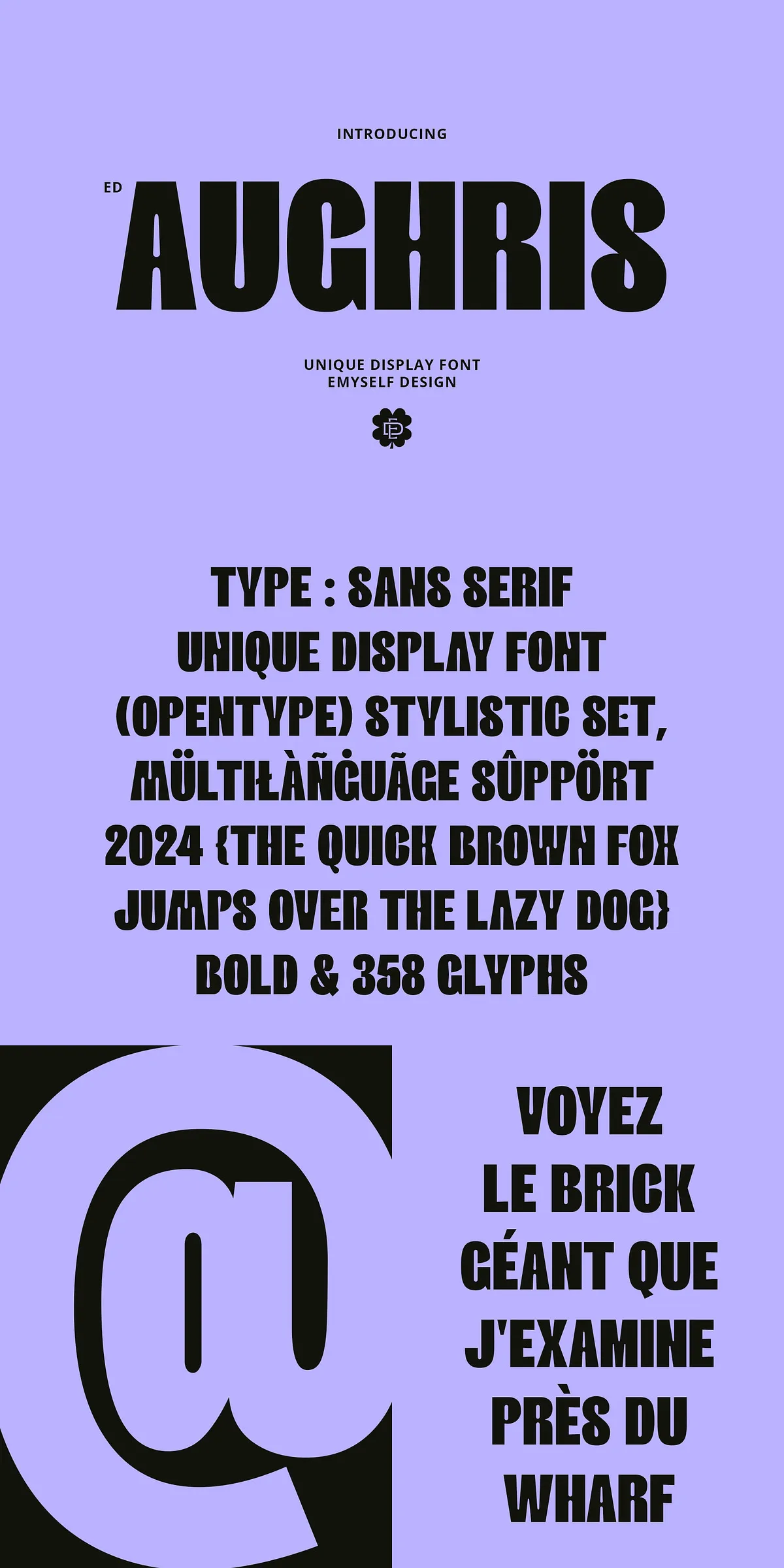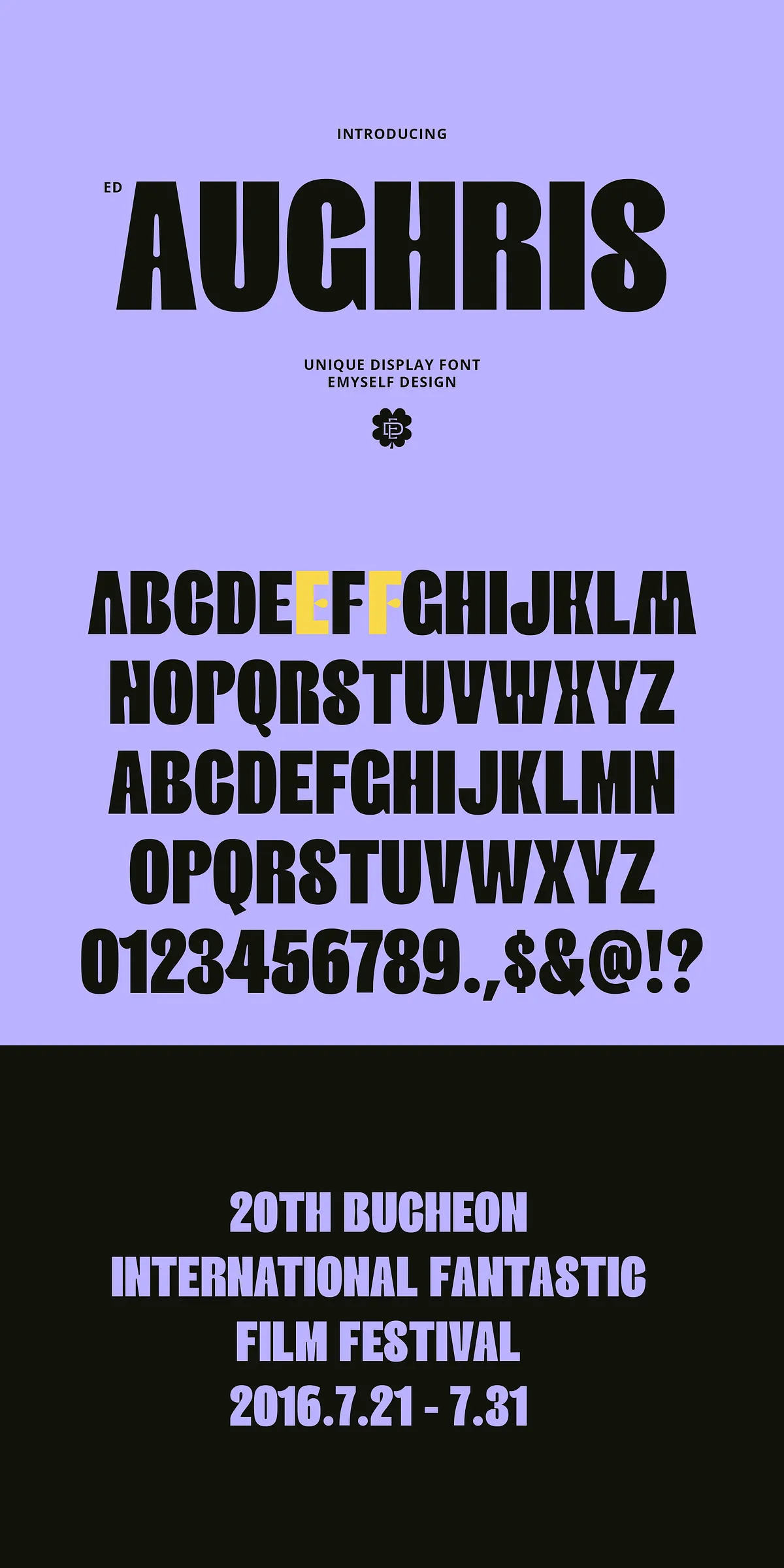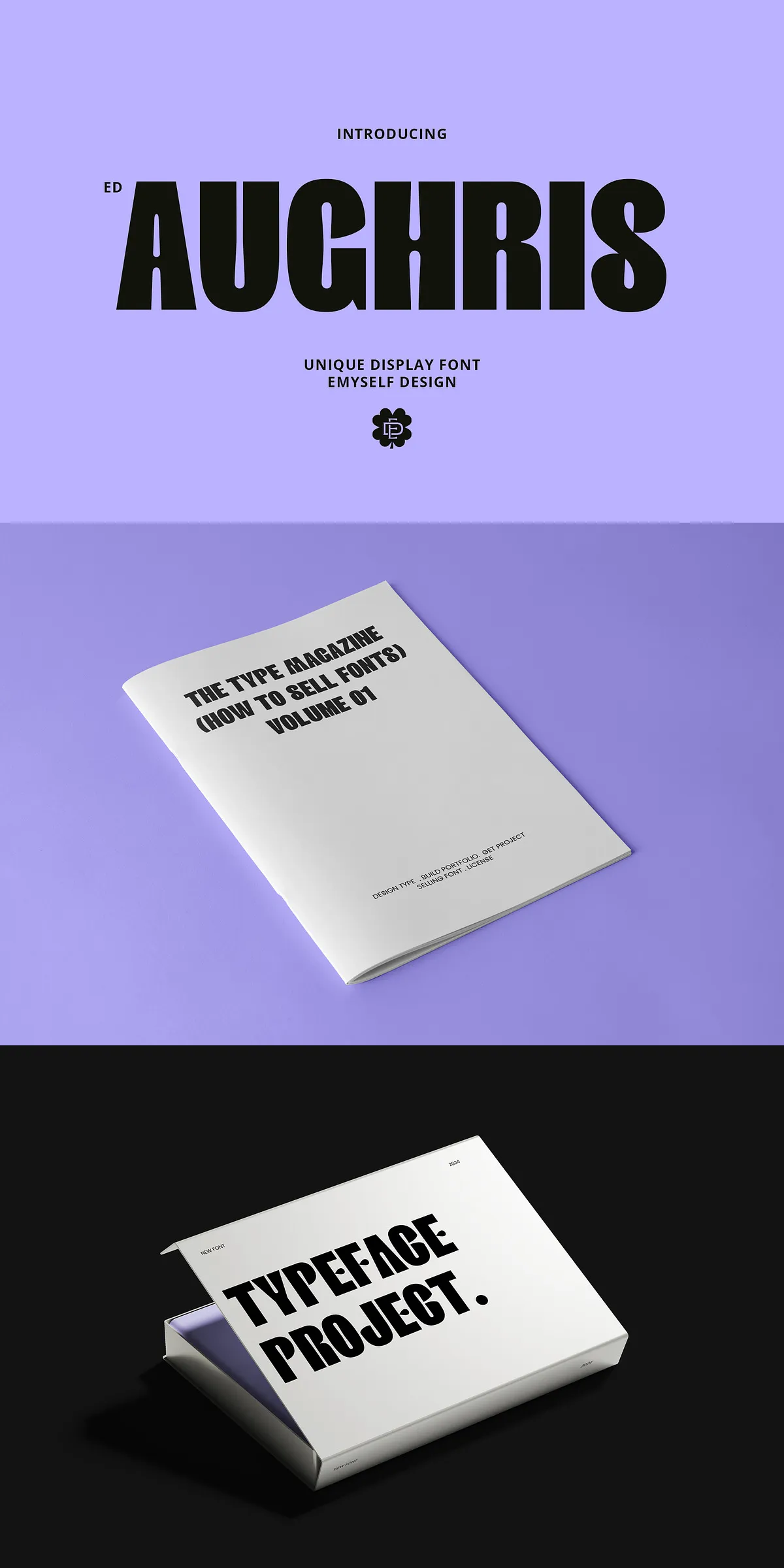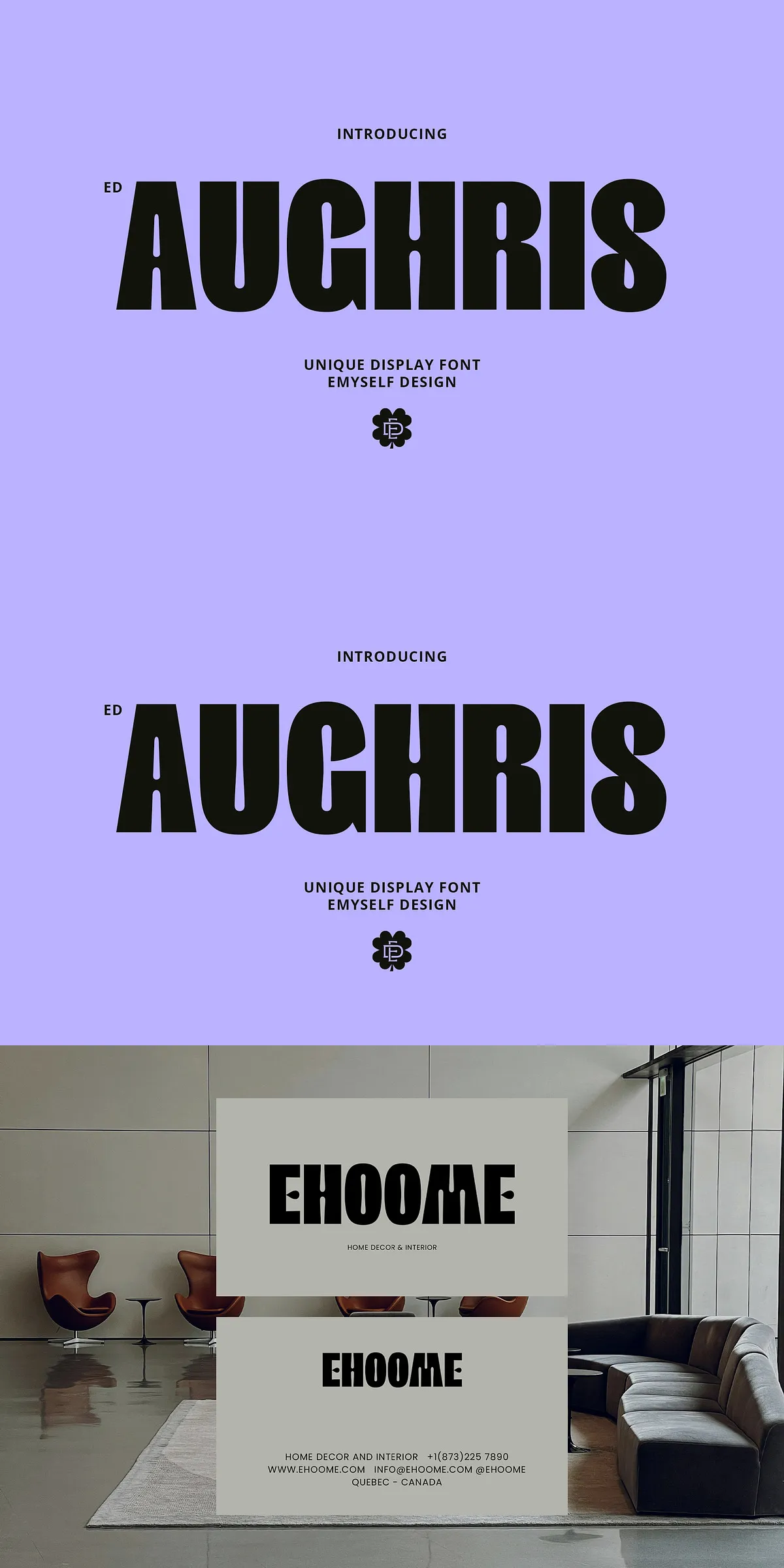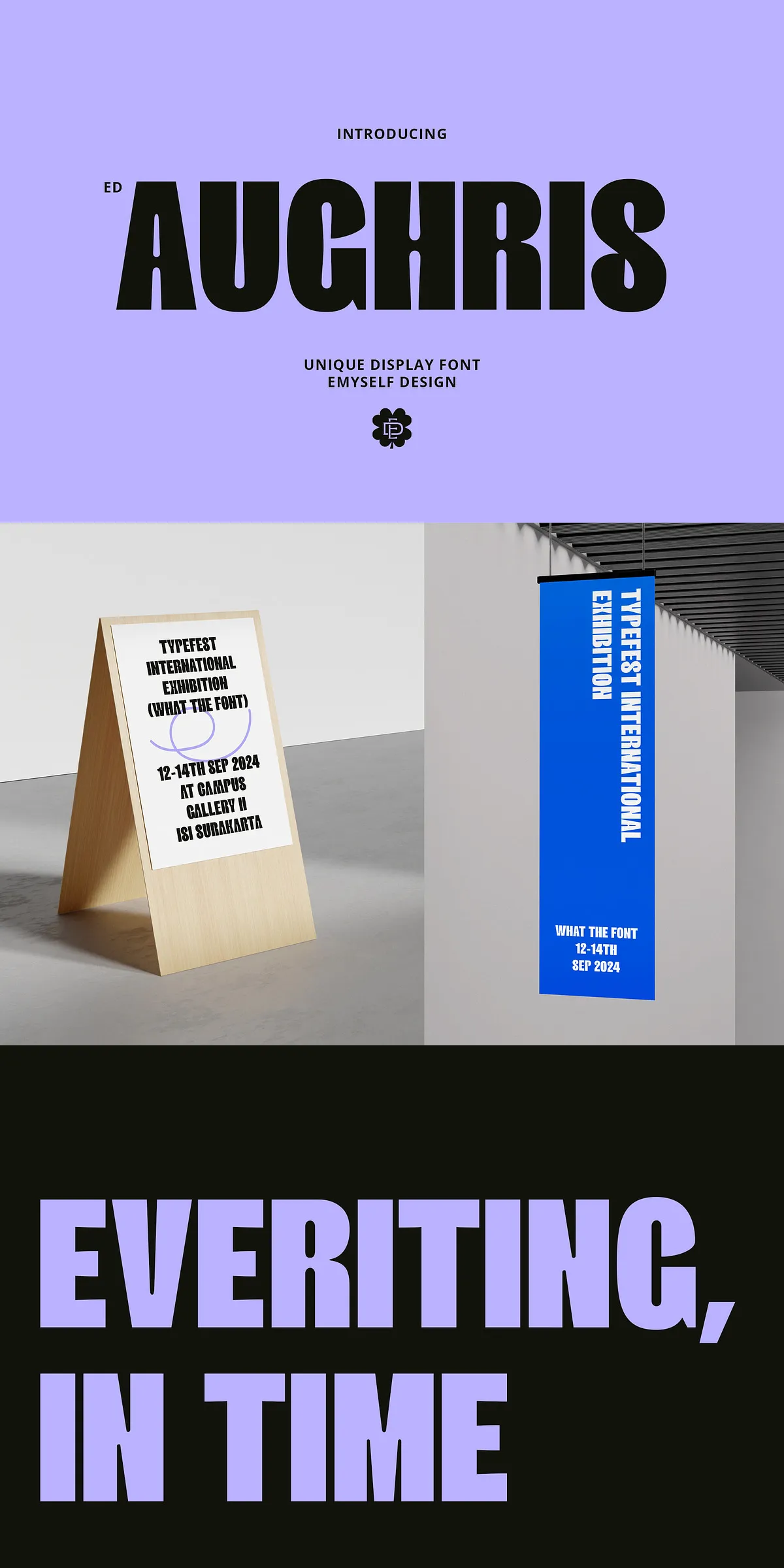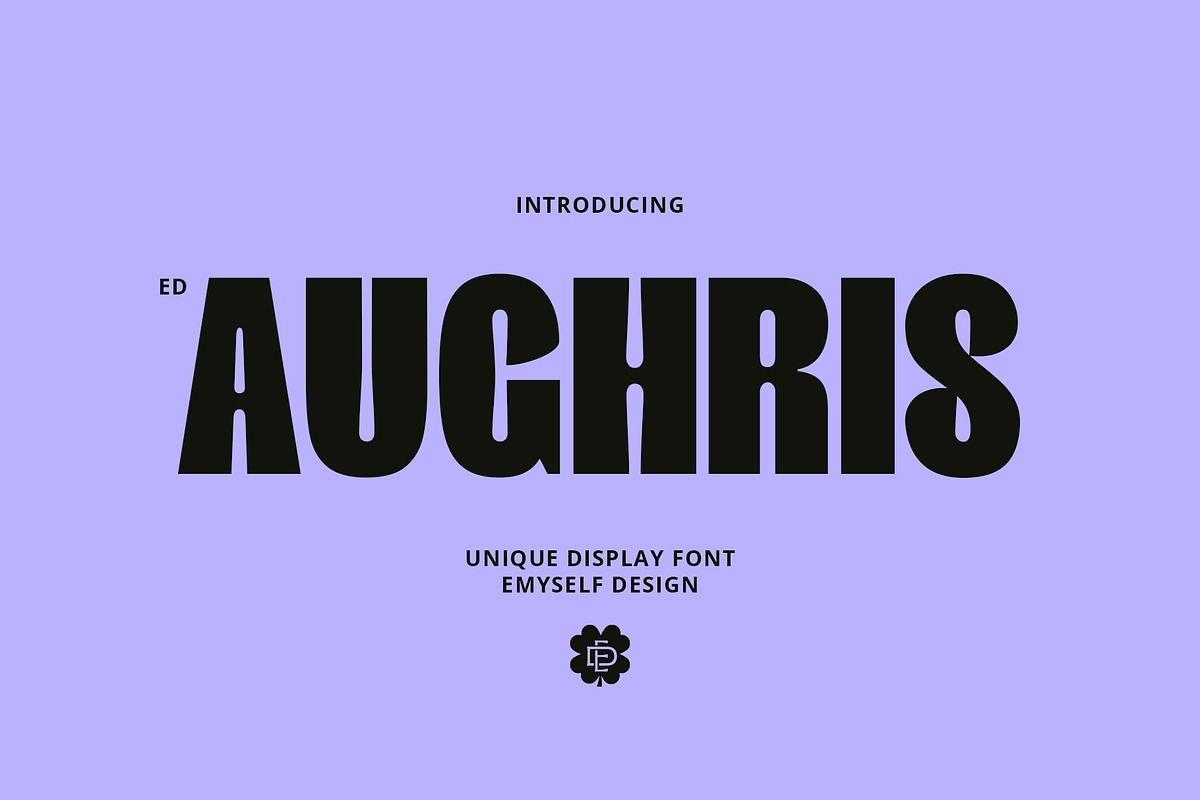
Step into the future of typography with Aughris — a powerful, modern sans serif display font that blends bold strength with minimalist precision. Designed for high visual impact, Aughris commands attention without sacrificing elegance. Whether you’re crafting a striking headline, developing a bold brand identity, or creating eye-catching graphic elements, Aughris delivers instantly recognizable style and professional-grade versatility.
Strong Identity, Clean Design — A Modern Statement
Bold Character Meets Minimalist Precision
Aughris doesn’t shout — it asserts. Its robust structure, clean lines, and carefully balanced spacing create a presence that’s both confident and refined. This is not a font for noise — it’s for clarity with power. Every stroke is intentional, every angle purposeful. The result? A typeface that stands out in a crowded visual landscape, yet feels perfectly at home in sleek, contemporary designs.
Whether used at a massive scale on banners or in subtle form on letterheads, Aughris brings sophistication and edge without overwhelming the message.
Designed to Blend with Any Design Vision
One of Aughris’s greatest strengths is its seamless compatibility with other fonts. Its neutral yet dynamic character allows it to pair beautifully with serif, script, and display fonts alike. Use it as a powerful headline to contrast with a delicate body font, or layer it in mixed-type compositions to create visual rhythm and depth.
From luxury branding to edgy streetwear, from digital interfaces to print media, Aughris adapts. It’s not just a font — it’s a creative foundation that inspires unique design combinations and fresh visual storytelling.
Powerful Features for Every Creative Demand
358 Glyphs — Full Creative Freedom
Aughris comes packed with **358 glyphs**, including:
- Full Latin character set with accented letters
- Multiple punctuation and typographic symbols
- Stylistic sets for refined typographic control
- Optional ligatures for smoother, more professional text flow
These features allow you to fine-tune your typography, avoid awkward spacing, and add subtle polish to every project — from invitations to digital ads, from magazine layouts to mobile app interfaces.
Endless Applications — From Branding to Design
Where Aughris Shines
Aughris is more than a font — it’s a design catalyst. Use it to:
- Create unforgettable logotypes and brand identities
- Build powerful headlines and banners for websites and social media
- Enhance apparel and merchandise with modern, wearable typography
- Develop sleek web UI components and interactive elements
- Stylize book and magazine layouts with dynamic sections and quotes
- Express bold quotes, and visual concepts in digital art and presentations
With Aughris, every project gains a unique identity — a visual fingerprint that says “modern” and “intentional”.
Clean, Contemporary, Always Relevan
Aughris wasn’t designed for a single trend. It’s built for lasting impact. Its minimalist aesthetic aligns with today’s most popular design philosophies — functional, uncluttered, and bold. It’s a font that doesn’t age. It evolves with your work, supporting your growth from startup to established brand.